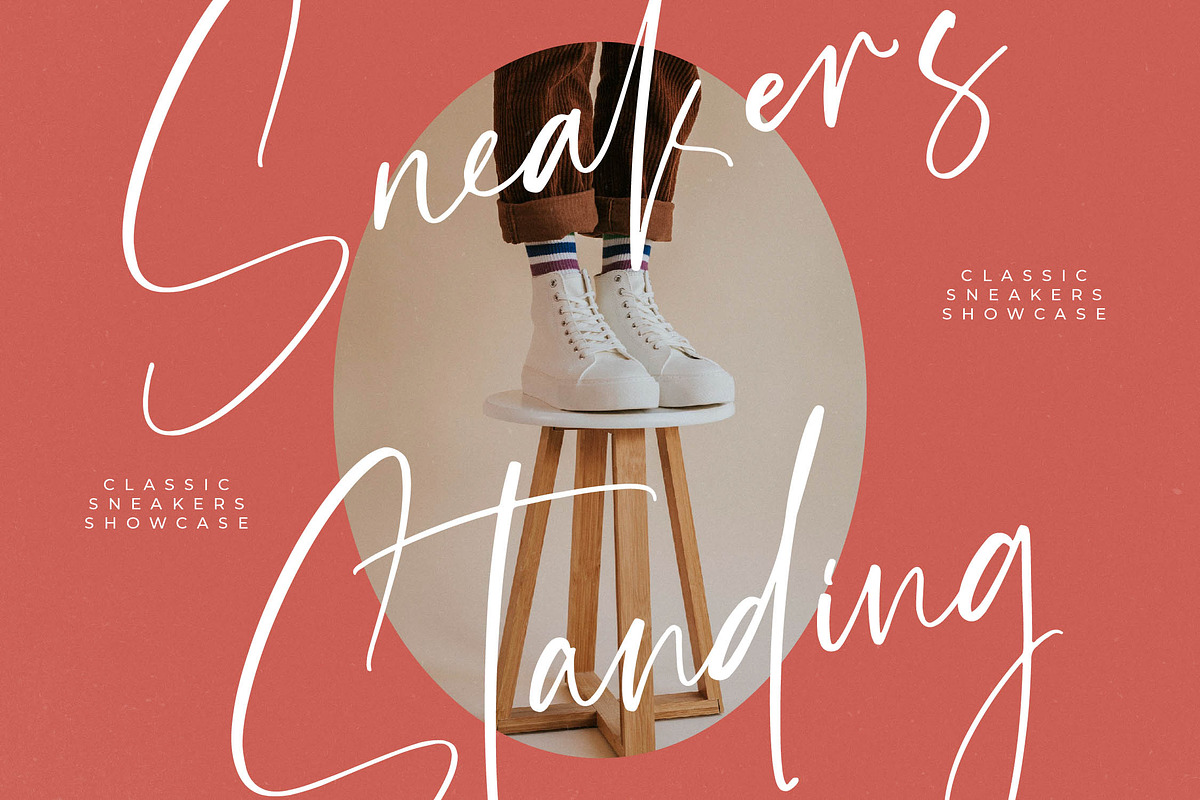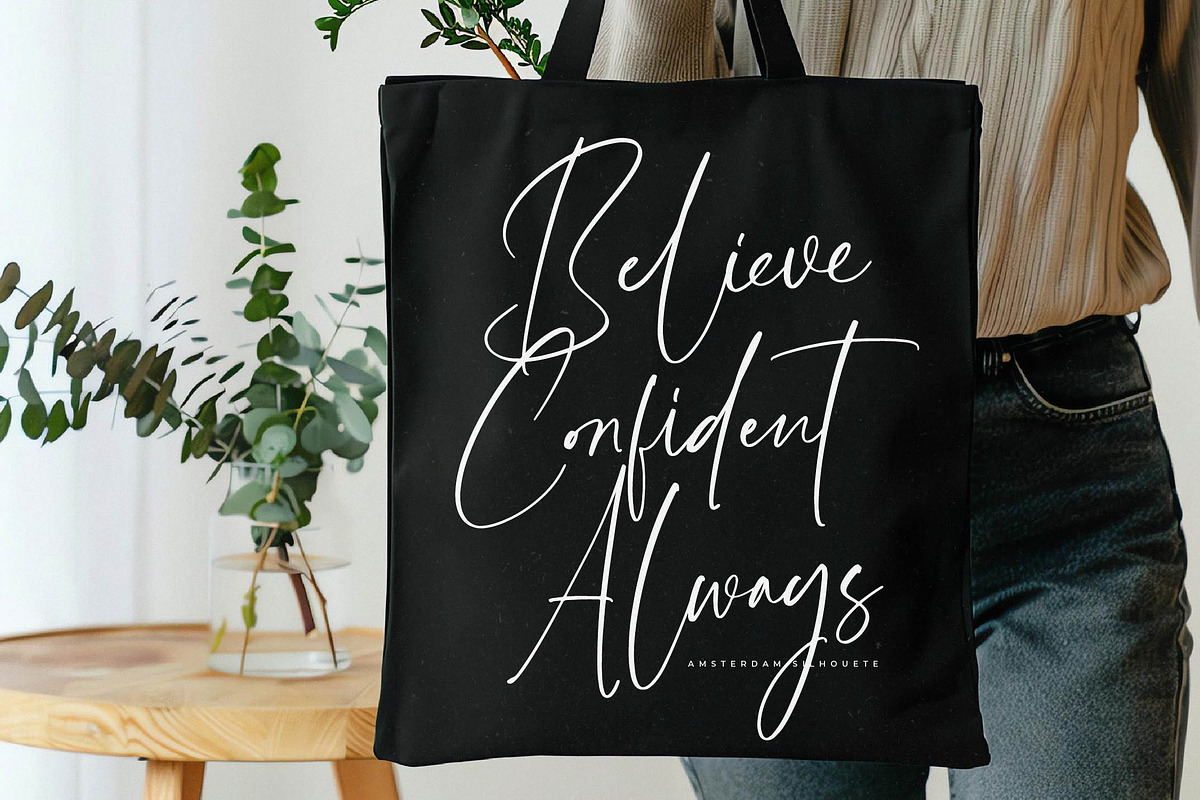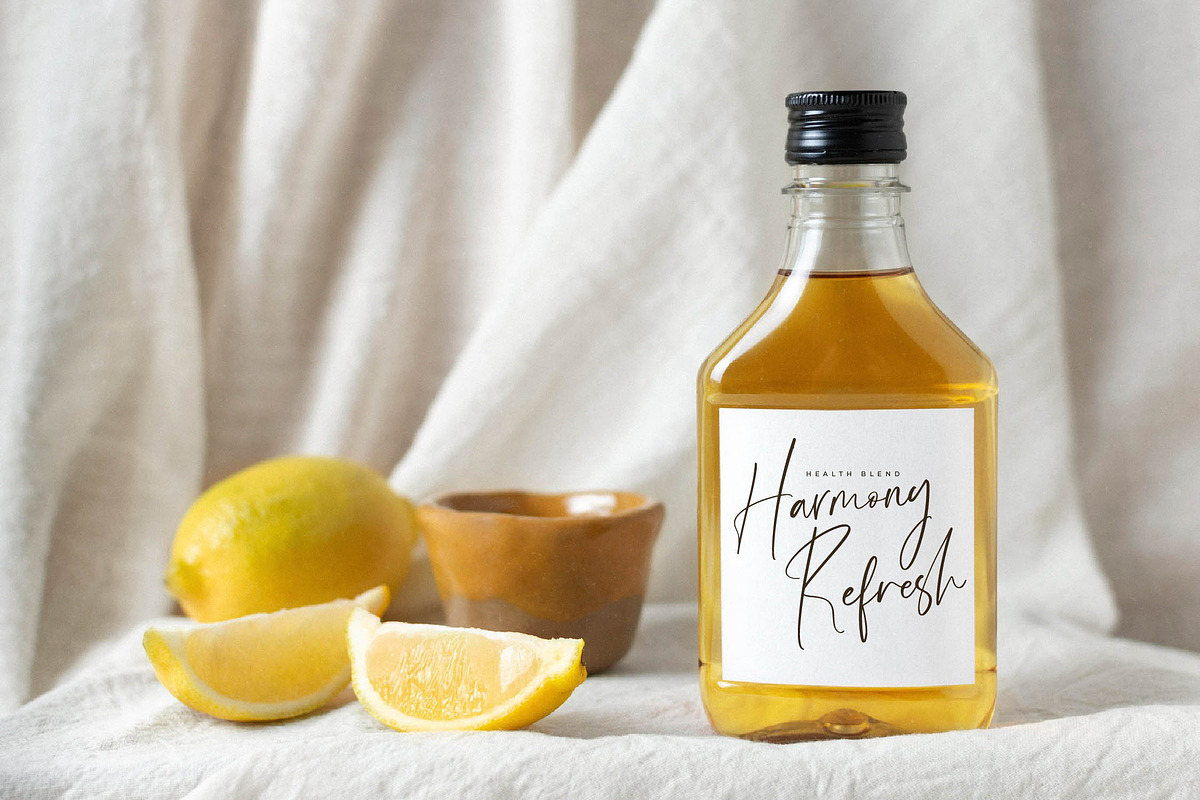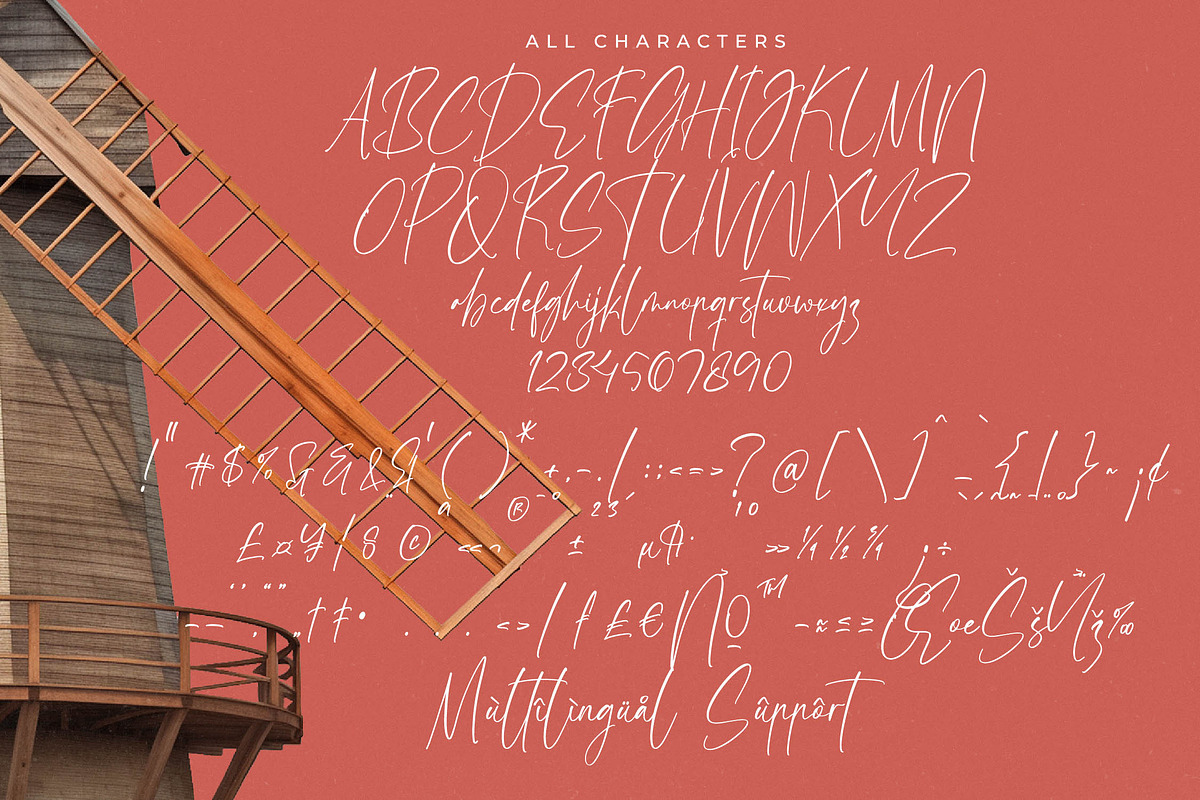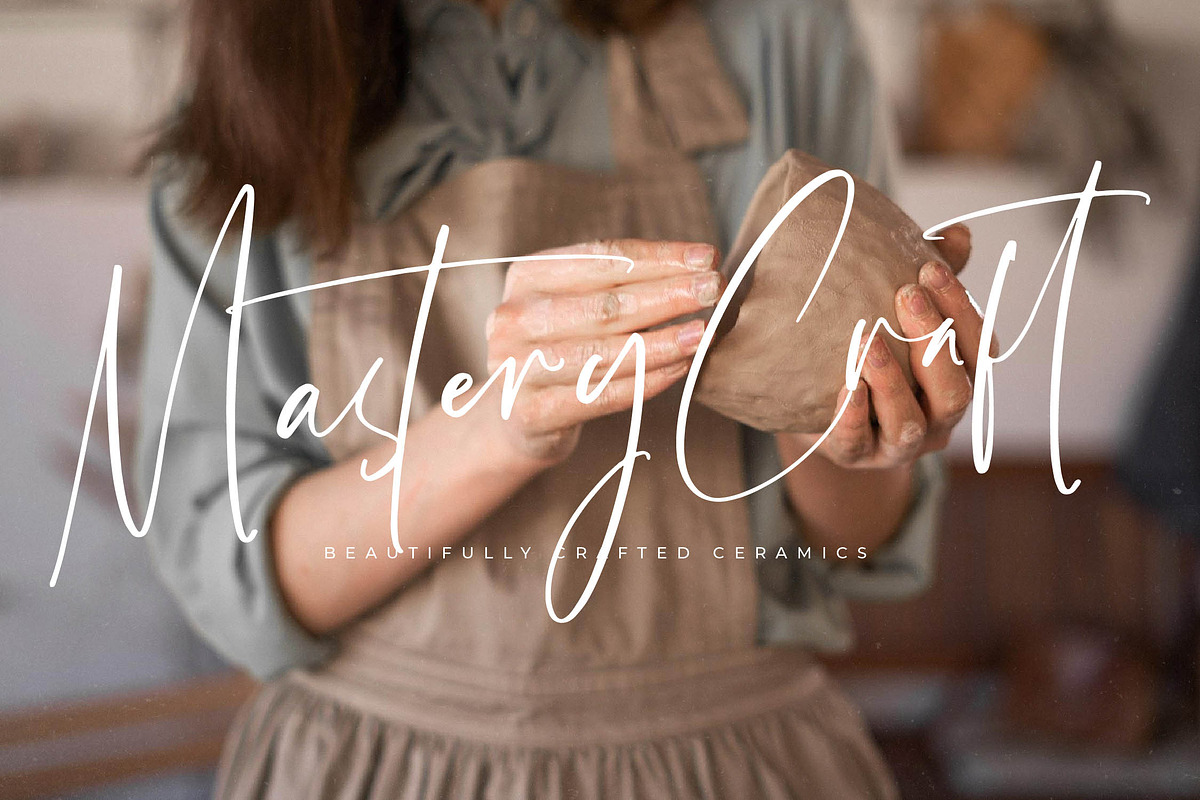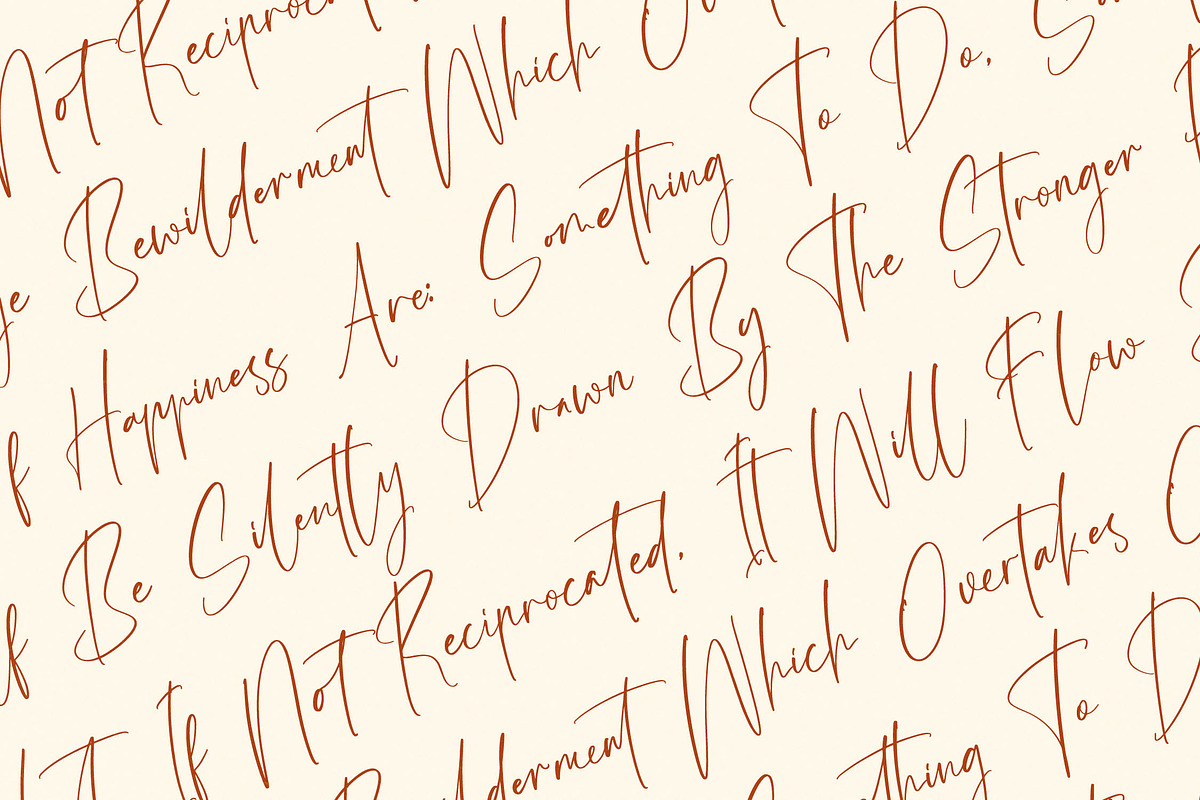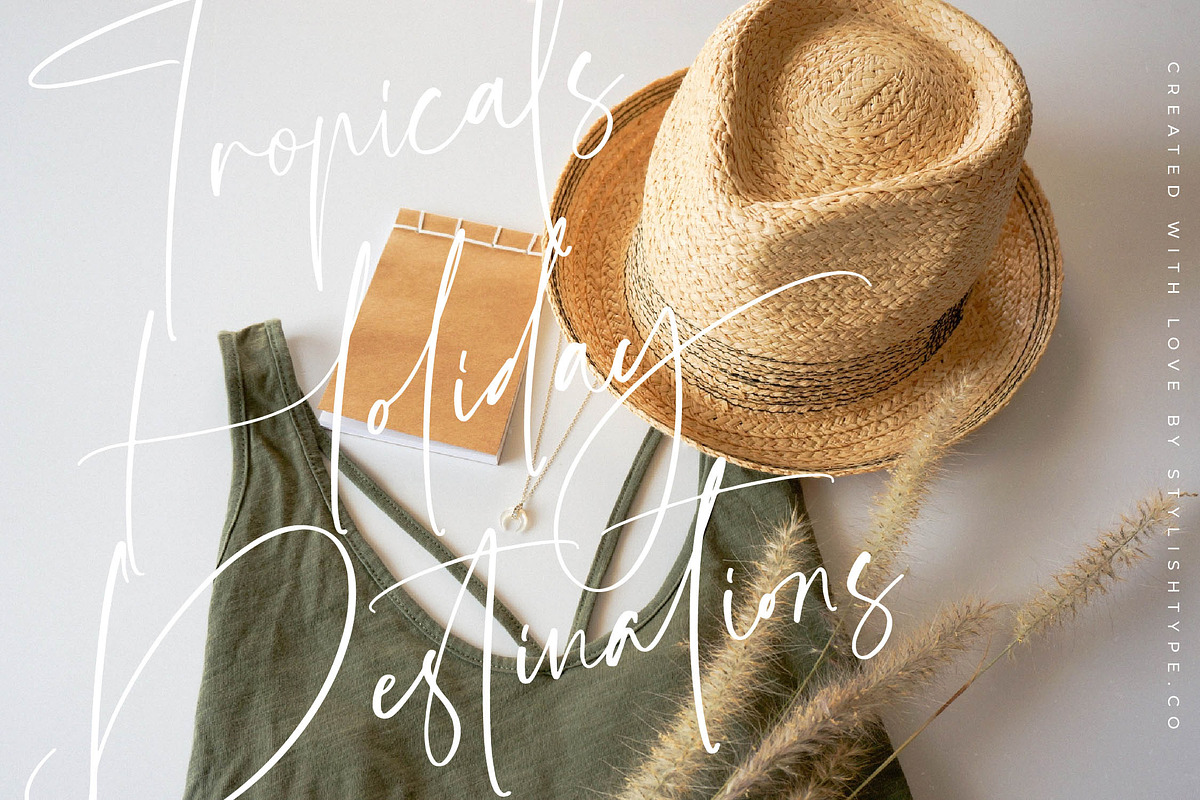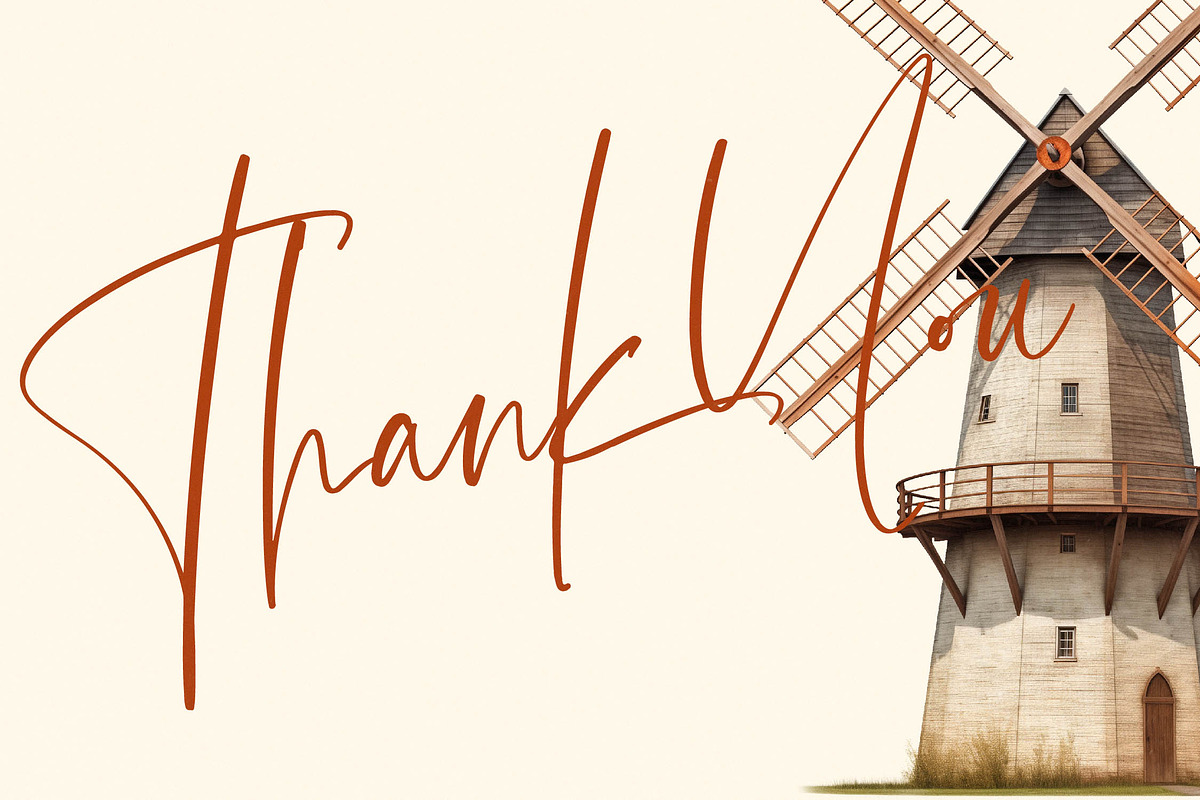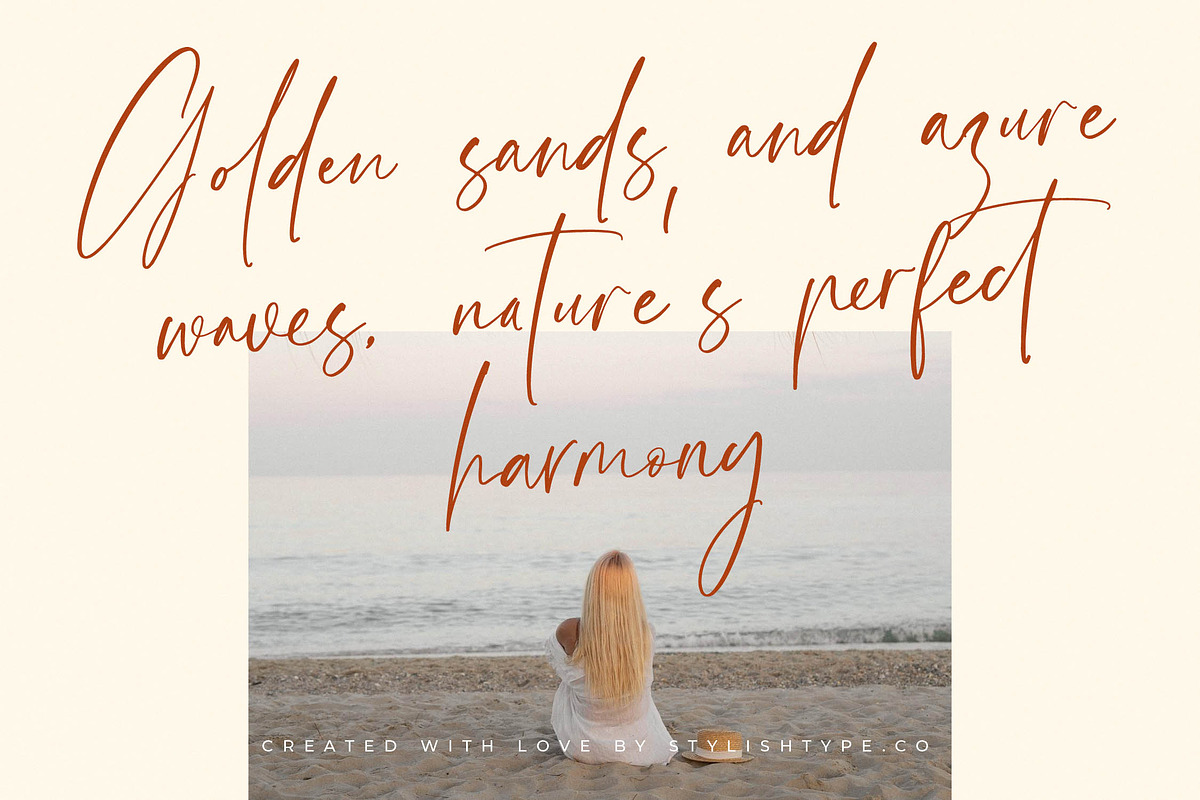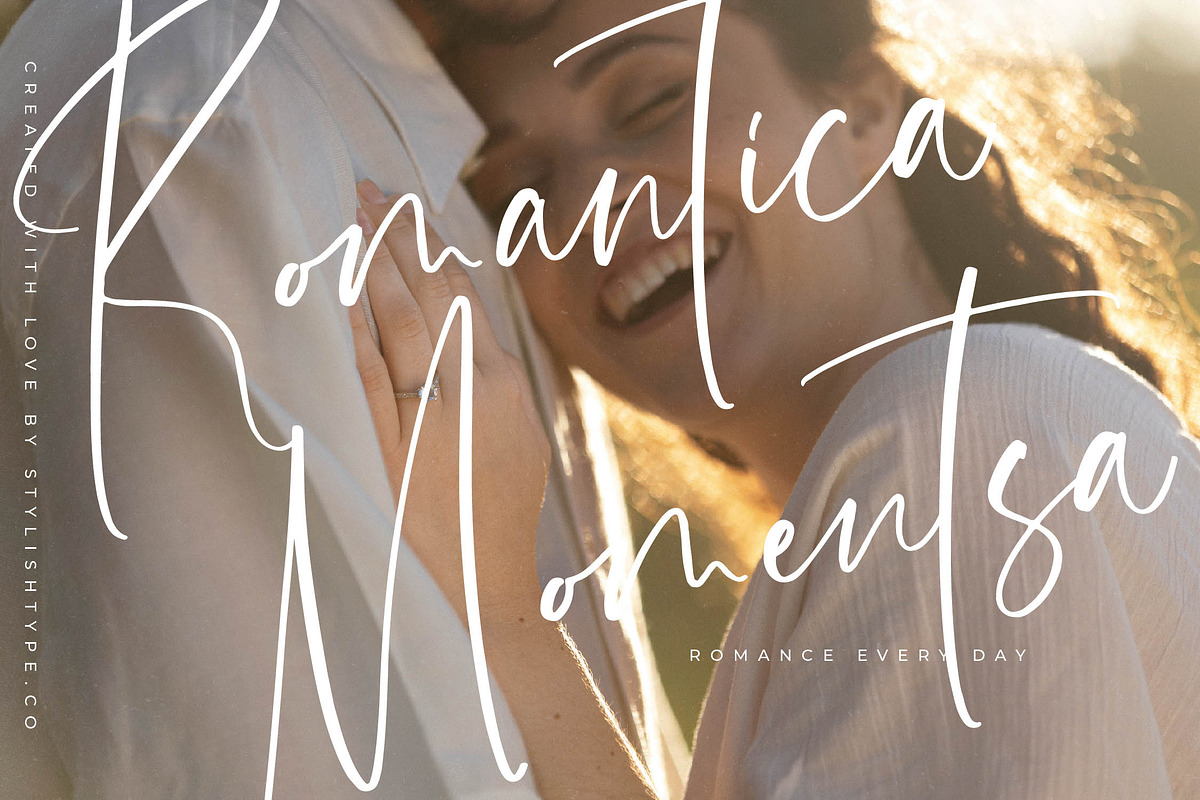
Amsterdam Silhouete Modern Script
Amsterdam Silhouete - Modern Script Font , Amsterdam Silhouete is a modern script font that embodies the perfect blend of sophistication, elegance, and handwritten artistry. Inspired by the graceful charm of flowing handwriting, this typeface is designed to bring authentic personality and luxury appeal to any creative project. Every stroke has been carefully crafted to appear natural yet refined, creating a font that feels both expressive and professional.
With its fluid letterforms and delicate curves, Amsterdam Silhouete delivers an aesthetic that is perfect for branding, editorial layouts, fashion-related designs, and wedding stationery. Its versatility makes it an excellent choice for both digital projects and print media, ensuring your work maintains a strong and stylish presence in any format. Whether used in logo design, product packaging, or social media content, this script font adds a layer of modern elegance that captures attention instantly.
Amsterdam Silhouete is not just a decorative typeface; it is a storytelling tool. Its organic flow allows you to create unique lettering compositions that feel personal and memorable, while still keeping a sense of luxury minimalism. The smooth connections between characters and the balanced spacing provide a polished look that enhances readability without sacrificing style.
This font is ideal for creatives who want their designs to stand out with a signature look. Its handwritten charm gives every project a sense of authenticity, while its modern structure ensures it aligns with today’s design trends. From romantic invitations to high-end advertisements, Amsterdam Silhouete communicates refinement, style, and timeless artistry.
If you are looking for a typeface that merges modern sophistication with the warmth of handcrafted design, Amsterdam Silhouete is the perfect choice. It transforms ordinary words into captivating visuals, giving your creative work a memorable and elegant identity.
- Ligature 109 Alternates 82 & Swashes